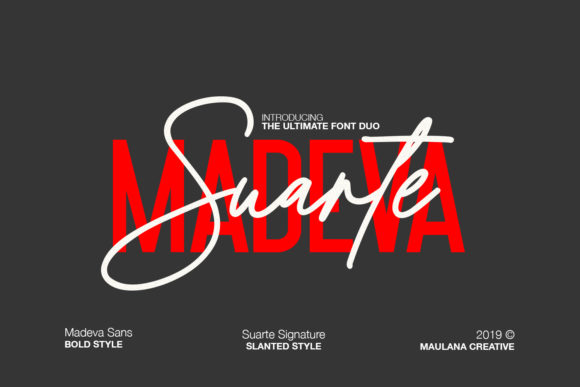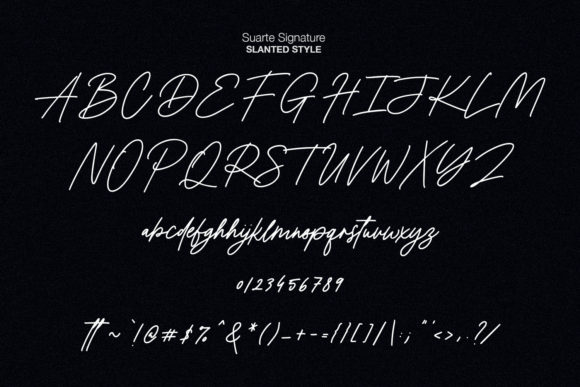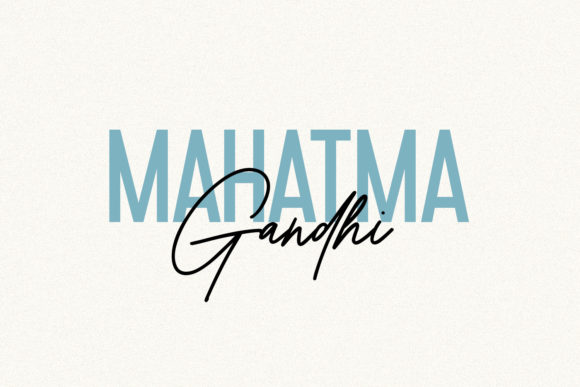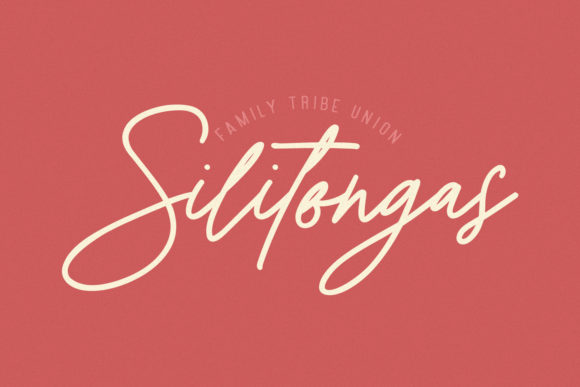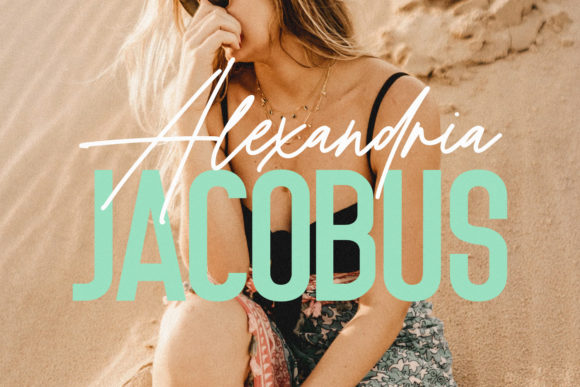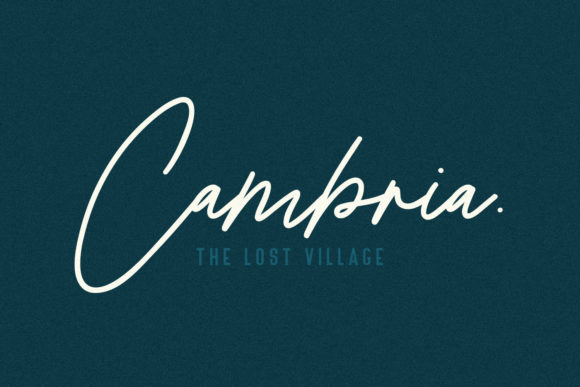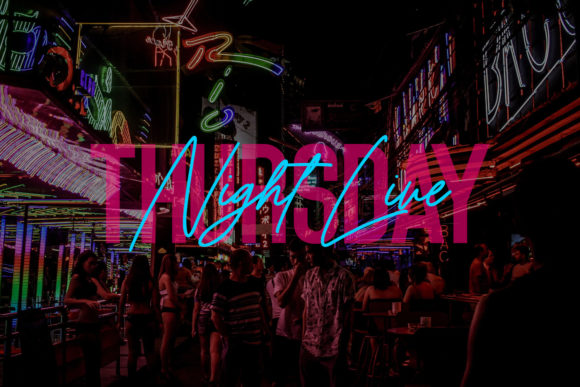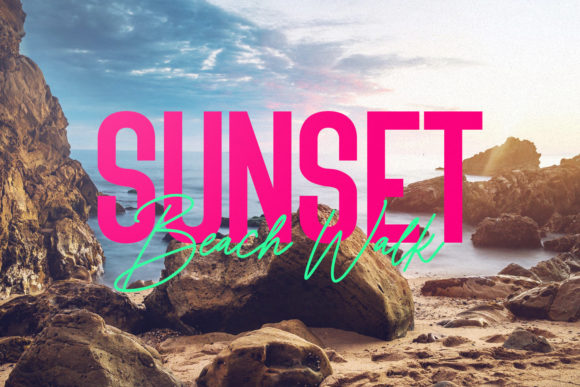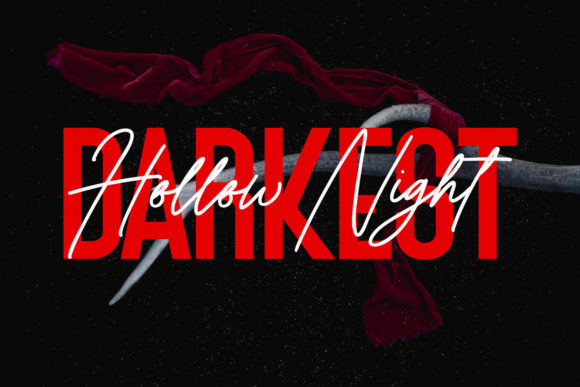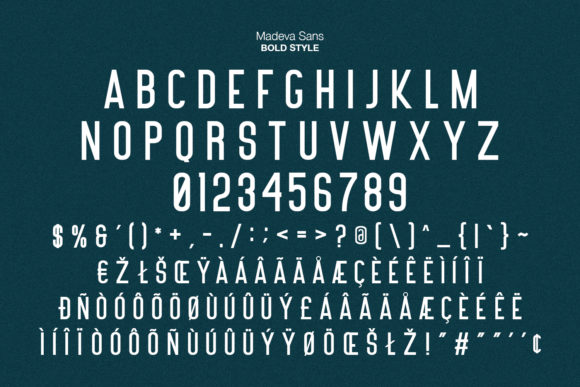
HomeScript FontsMadeva Suarte Font Script Fonts Madeva Suarte Font FacebookXPinterestWhatsApp Madeva Suarte Font Poster 2 Madeva Suarte Font Poster 3 Madeva Suarte Font Poster 4 Madeva Suarte Font Poster 5 Madeva Suarte Font Poster 6 Madeva Suarte Font Poster 7 Madeva Suarte Font Poster 8 Madeva Suarte Font Poster 9 Madeva Suarte Font Poster 10 About Madeva Suarte Font Madeva Suarte is a stunning font duo with a bold twist. Use these two fonts to create one-of-a-kind designs! DOWNLOAD ON CREATIVE FABRICAThis font is sold and delivered by Creative Fabrica. Font Canyon may earn a commission if you buy through this link. People also explored Hello Kamilla Font Ematodas Font Boulevard Font Slatter Font Panic Brush Font Charlotte Font Collect Font Bearbone Sans Font Swimming Poll Font 394 0 TagsMadeva Suarte Font Previous articleReading FontNext articleLove Story Font LEAVE A REPLY Cancel reply Comment: Please enter your comment! Name:* Please enter your name here Email:* You have entered an incorrect email address! Please enter your email address here Website: Save my name, email, and website in this browser for the next time I comment. Personal Use Free New System Personal Use Free Read more about this font Ammanda Personal Use Free Read more about this font Mike Ferrari 16017 Personal Use Free Read more about this font Wallabys Junior Personal Use Free Read more about this font BLOG The 10 Best Handwriting Fonts to Add Personality to Your Designs 10 of the Best Handwriting Fonts for Adding Personality to Your Designs There will undoubtedly be no other better choice than handwriting fonts to give... Modern Sans-Serif Fonts That Brands Love in 2025 Top 10 Handwritten Fonts That Elevate Your Designs Exploring Font Trends